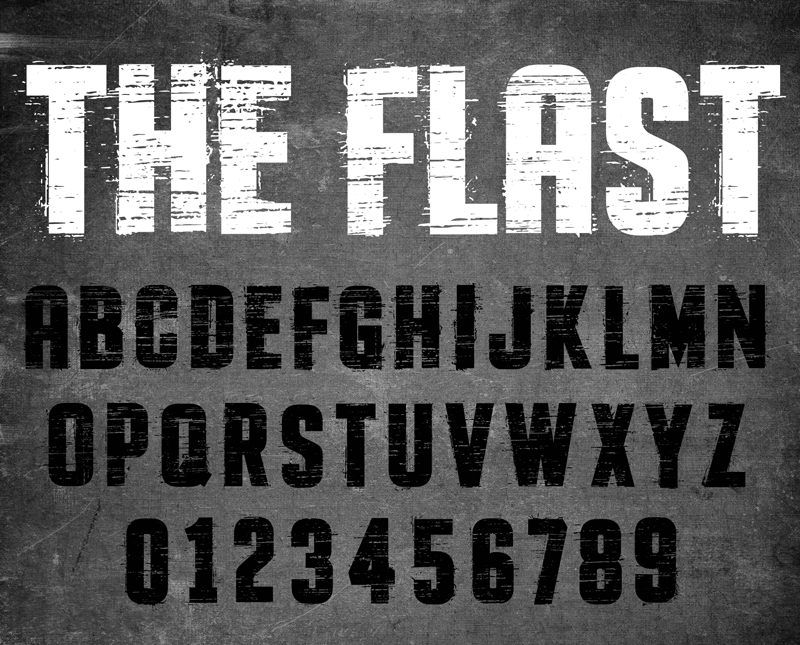
Preview and download The Flast Font. Created by Knackpack Studio in Fancy Eroded styles with Demo license.
- Introducing - -- The FLAST - - - Bold, Distorted style typeface with unique touch of textures. Idealistic in a rustic and grunge type of works. Available: Uppercase | Numbers | Punctuations 100% FREE for Personal. Donation is Highly appreciated. :) FULL / Commercial Version available at Website: http://www.knackpack.studio/fonts CM: https://creativemarket.com/knackpackstudio Subscribe to my Youtube Channel: https://bit.ly/33CYJVG |